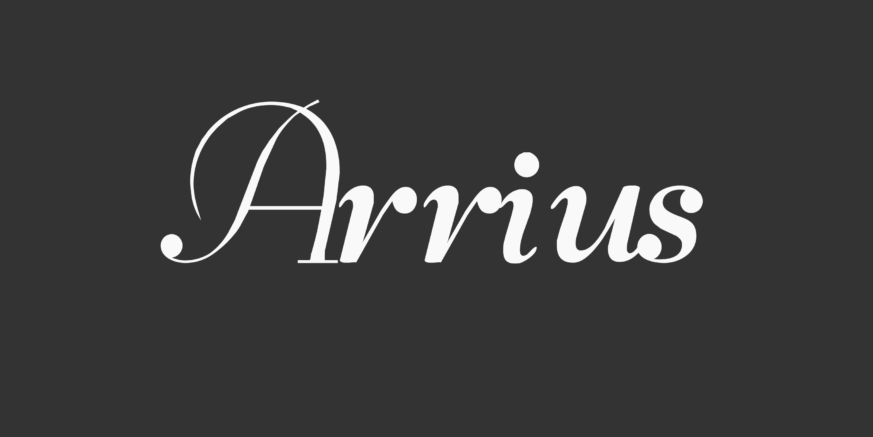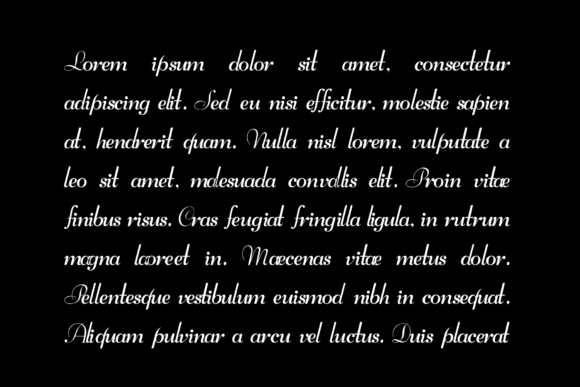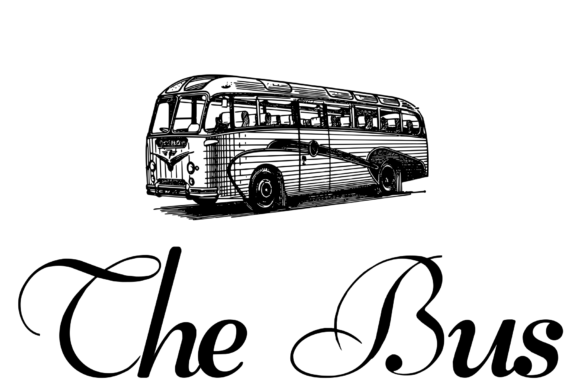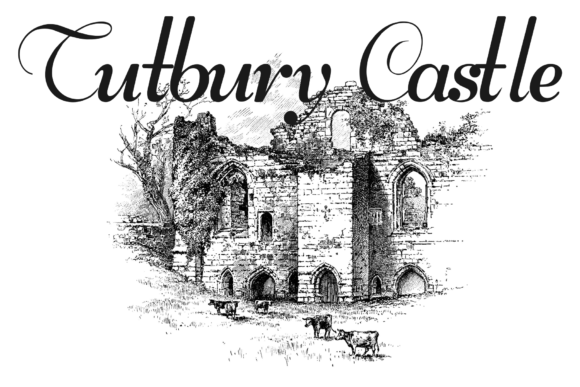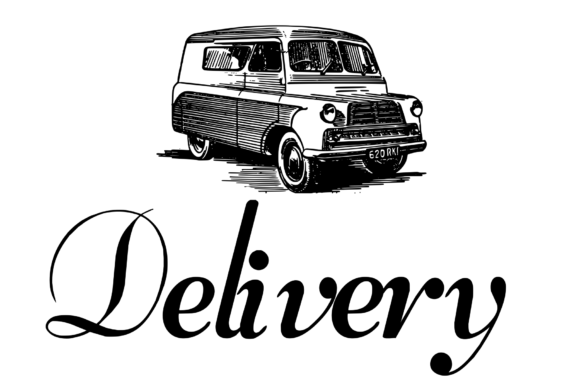
Arrius
Font Family by Intellecta Design
Arrius is a stylish and incredibly elegant script font. It looks stunning on wedding invitations, thank you cards, quotes, greeting cards, logos, business cards and every other design which needs a handwritten touch.